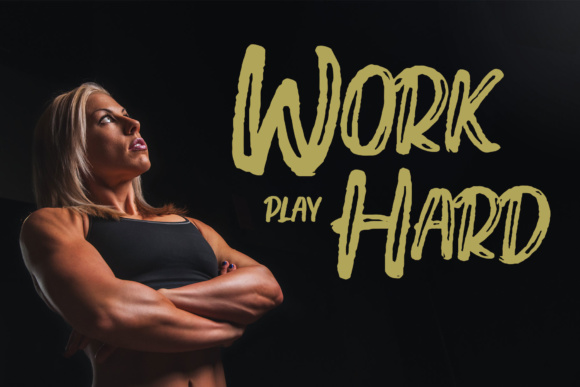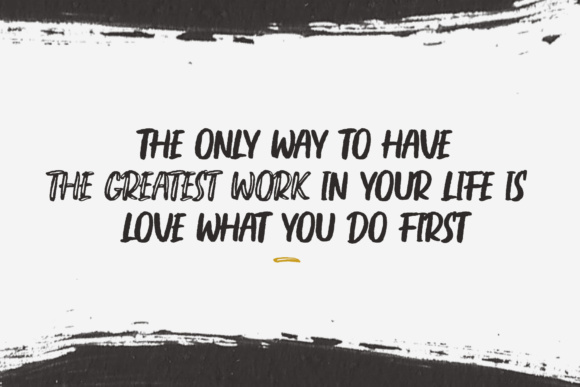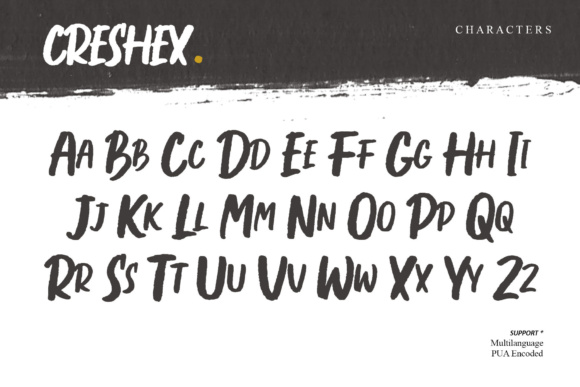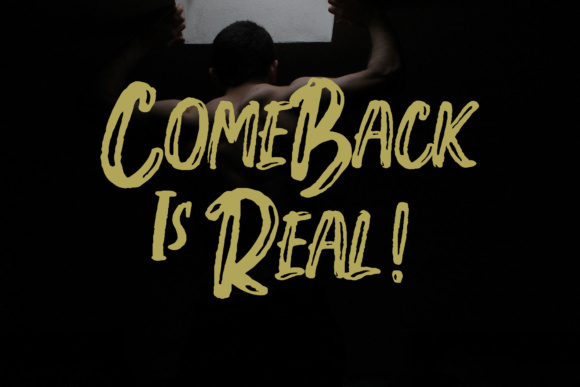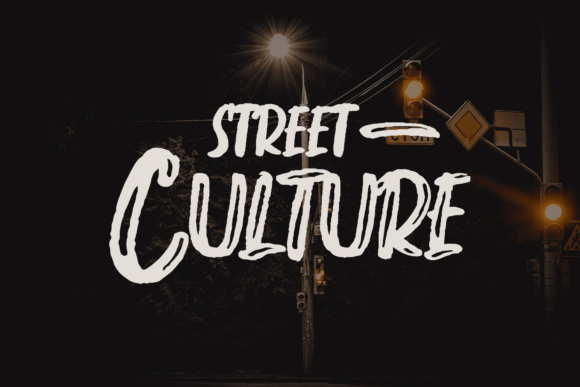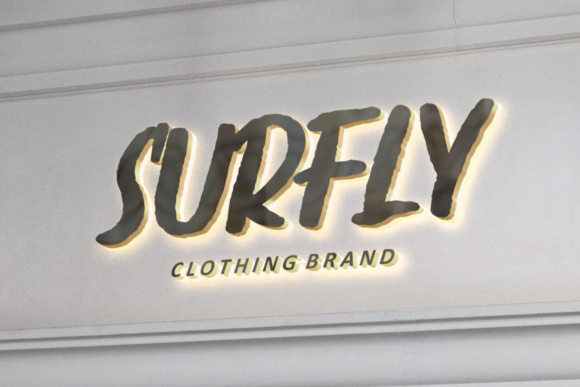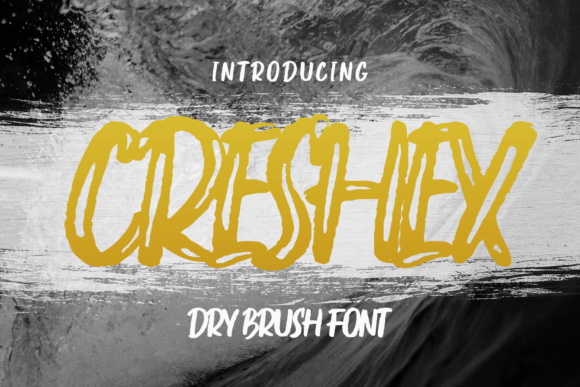
Creshex Font: Elevate Your Designs with a Fun and Bold Dry Brush Font
Are you looking for a font that can add a unique and bold touch to your projects? Look no further than Creshex, a fun and bold dry brush font that’s perfect for designers and crafters who want to give their work a textured and strong appeal. In this article, we’ll dive into the features and benefits of Creshex, and explore how you can use it to take your designs to the next level.
What is Creshex Font?
Creshex is a dry brush font that’s designed to mimic the look and feel of hand-painted text. With its bold and textured strokes, Creshex is perfect for creating eye-catching headlines, titles, and graphics that demand attention. The font is highly versatile and can be used for a wide range of projects, from branding and advertising to packaging and signage.
Key Features of Creshex Font
• Fun and Bold Design: Creshex has a playful and energetic vibe that’s perfect for designers who want to add a touch of personality to their work.
• Dry Brush Texture: The font features a textured, dry brush effect that gives it a unique and organic feel.
• Highly Legible: Despite its bold and textured design, Creshex is highly legible, even at small sizes.
• OpenType Features: Creshex supports OpenType features, including ligatures and stylistic alternates, which allow you to customize the font to suit your needs.
Benefits of Using Creshex Font
So why should you choose Creshex for your next project? Here are just a few benefits of using this versatile and stylish font:
• Adds Texture and Depth: Creshex’s dry brush texture adds a level of depth and interest to your designs, making them more engaging and visually appealing.
• Creates a Unique Look: With Creshex, you can create a unique and distinctive look that’s sure to set your project apart from the competition.
• Perfect for Branding and Advertising: The font’s bold and attention-grabbing design makes it perfect for use in branding and advertising campaigns.
How to Use Creshex Font
Using Creshex is easy. Here are a few tips to get you started:
• Pair it with a Simple Background: Creshex works best when paired with a simple background that allows the font to take center stage.
• Experiment with Colors: The font looks great in a range of colors, so don’t be afraid to experiment and find the perfect hue for your project.
• Use it for Headlines and Titles: Creshex is perfect for use in headlines and titles, where its bold and attention-grabbing design can really shine.
If you’re looking for a fun and bold dry brush font that can add a unique and textured appeal to your projects, Creshex is the perfect choice. With its highly legible design, OpenType features, and versatile styling, Creshex is a must-have font for designers and crafters who want to take their work to the next level. So why wait? Download Creshex today and start creating stunning designs that demand attention!